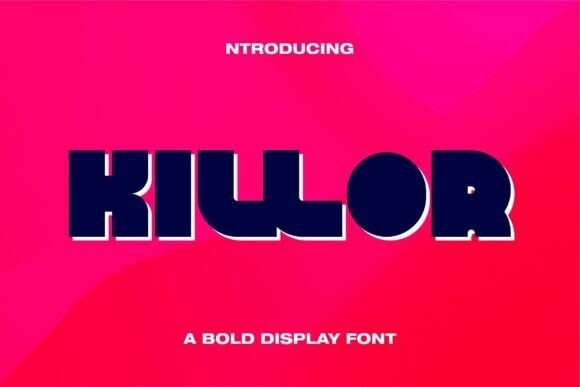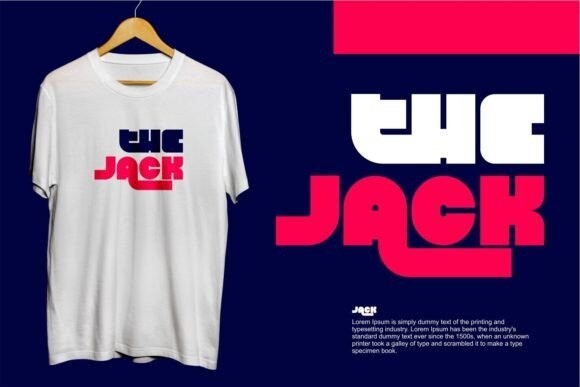
Killor Font
Killor is a modern and bold display font with a cartoon style. It will look so beautiful on magazine covers, greeting cards, branding materials, business cards, quotes, posters, and more!